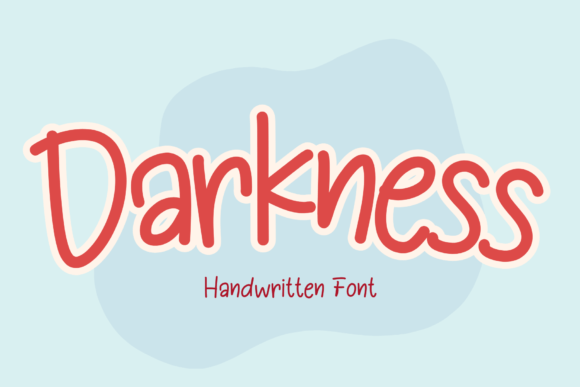
Introducing Darkness Font, a captivating script font that will elevate your designs to new heights! Created by the talented team at Brown Cupple Fonts, this font is the epitome of fun and authenticity. With its playful strokes and unique character, Darkness Font is the ultimate choice for all your creative projects.
Whether you're crafting a blog post, designing a logo, or creating stunning branding materials, Darkness Font is here to meet all your needs. Its versatility knows no bounds, making it the perfect companion for ads, invitations, greeting cards, planners, photo albums, decorations, and so much more.
Imagine the possibilities when you incorporate Darkness Font into your designs. Its handwritten style not only adds a touch of charm but also evokes a sense of warmth and personality. Your audience will be captivated by the genuine and heartfelt vibe that this font exudes.
Let Darkness Font be the secret ingredient that sets your designs apart from the rest. Its eye-catching appeal will instantly draw attention and leave a lasting impression. Whether you're aiming for a contemporary or a vintage look, this font effortlessly adapts to any style, making it a must-have in your creative toolkit.
But it doesn't stop there – Darkness Font is also optimized for body text print. Its legibility and readability ensure that your message is conveyed with utmost clarity. Say goodbye to dull and monotonous typography, and embrace the power of Darkness Font to bring life and excitement to your body text.
With Darkness Font, your designs will speak volumes. Its emotional impact will resonate with your audience, creating a connection that goes beyond words. Every stroke and curve tells a story, leaving a lasting impression that is both captivating and memorable.